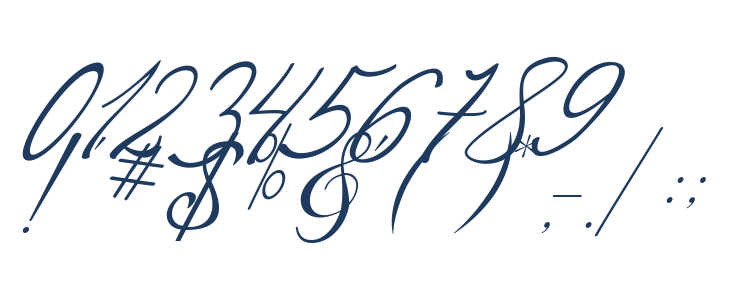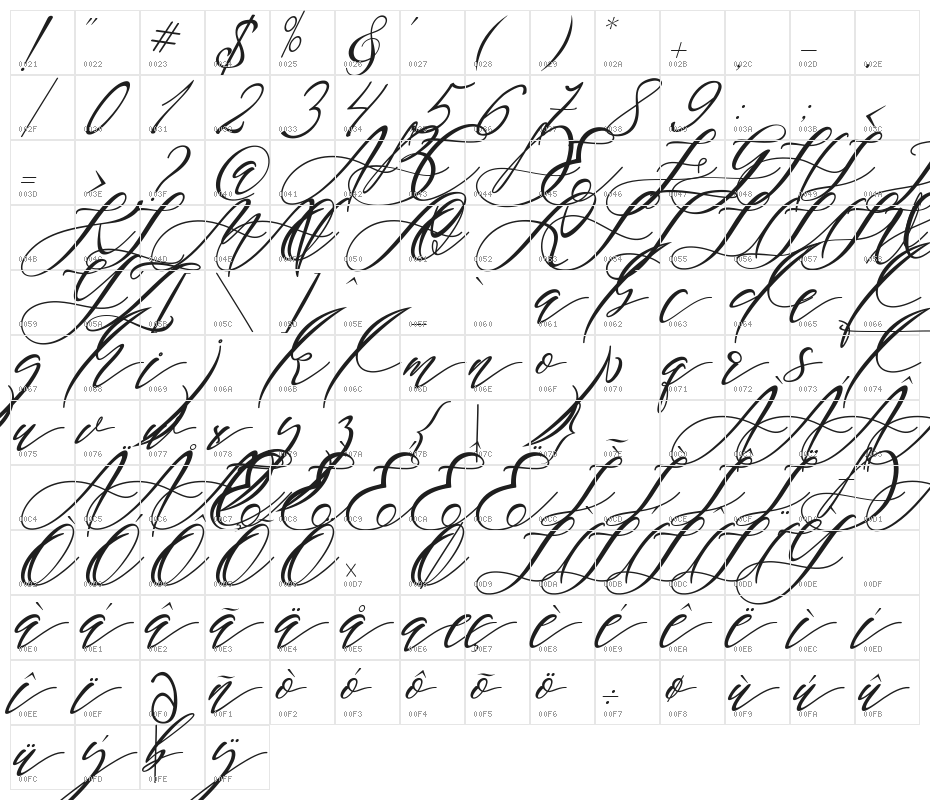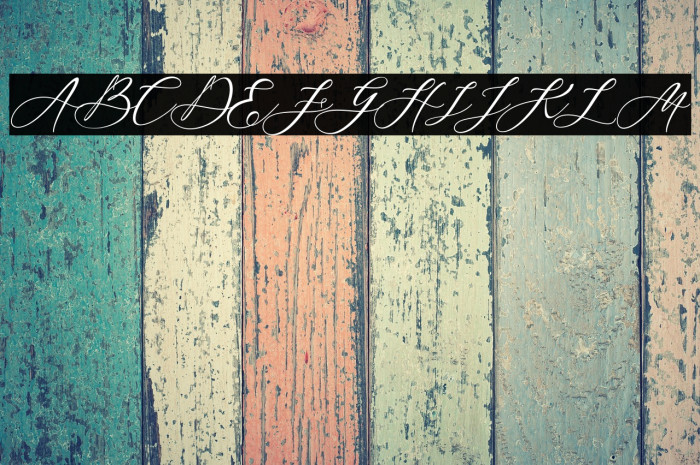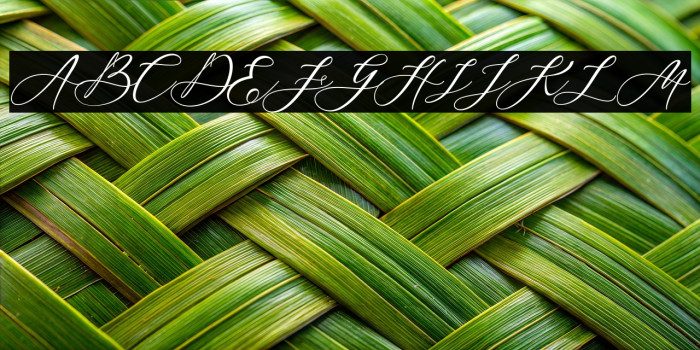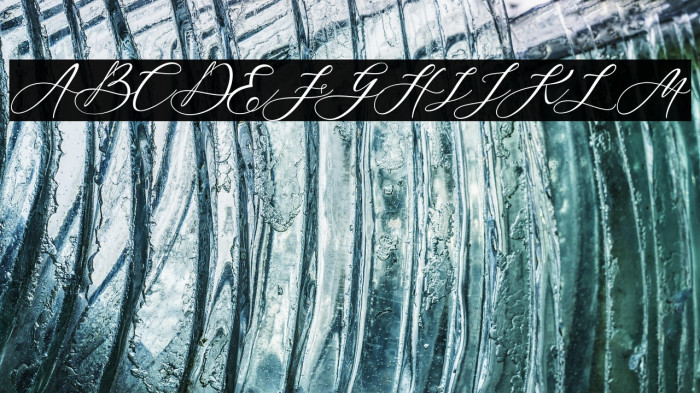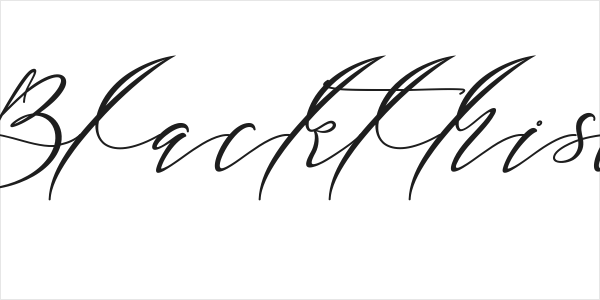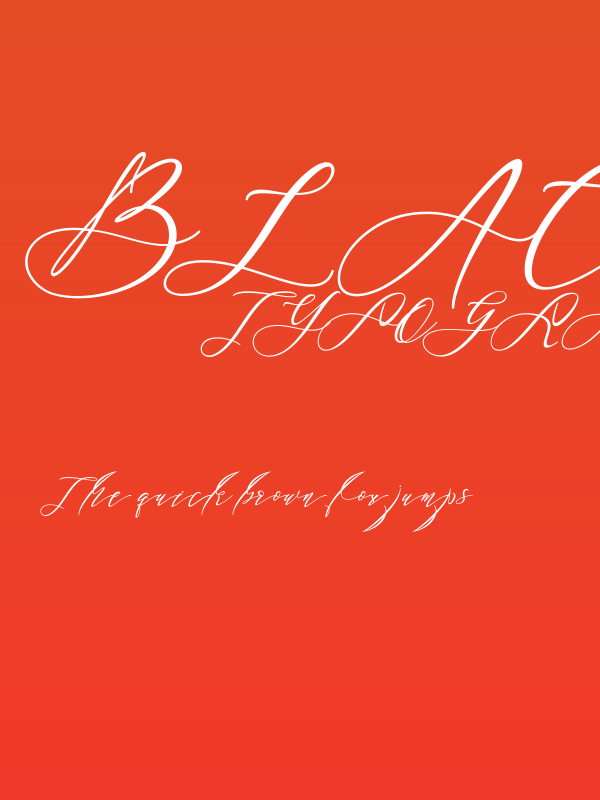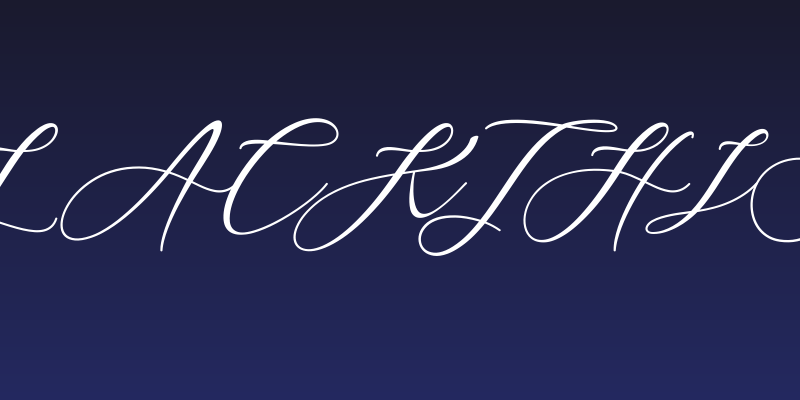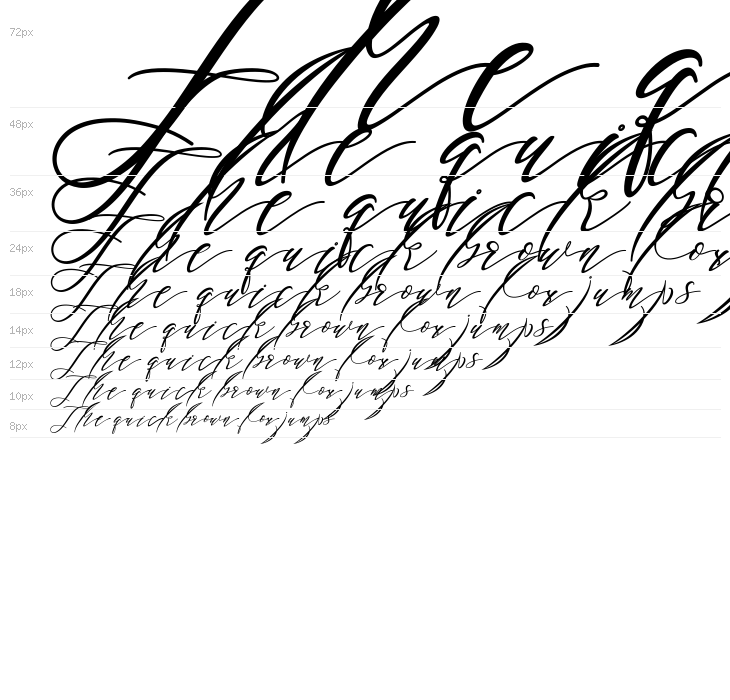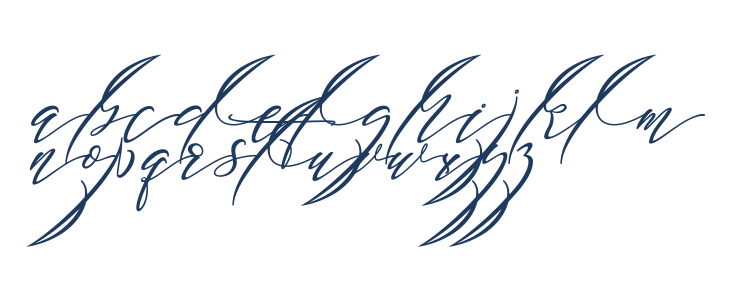
Blackthise Font
Blackthise Description
This font exhibits a flowing, elegant script style with a high degree of cursive flair. The characters are interconnected, creating a seamless and sophisticated appearance. The uppercase letters are ornate, with extended loops and swashes that enhance the decorative quality. Lowercase letters maintain a consistent slant and fluidity, contributing to the overall graceful aesthetic. The numerals are similarly styled, with a slight slant and delicate curves. Special characters are integrated with the same artistic touch, ensuring uniformity across the set. This font is ideal for projects that require a touch of elegance and refinement.
| Overall Style | Elegant, Decorative |
| Use Case | Logos, Invitations, Decorative Text |
| Proposed Projects | Ideal for wedding invitations, luxury branding, elegant stationery, and decorative headlines. |